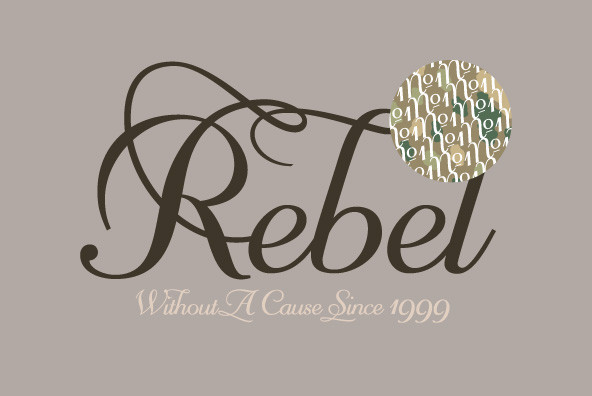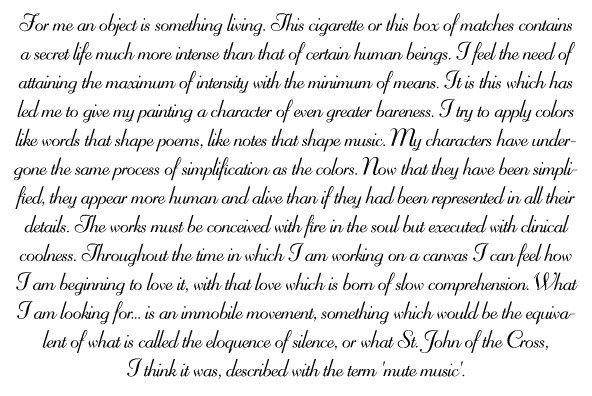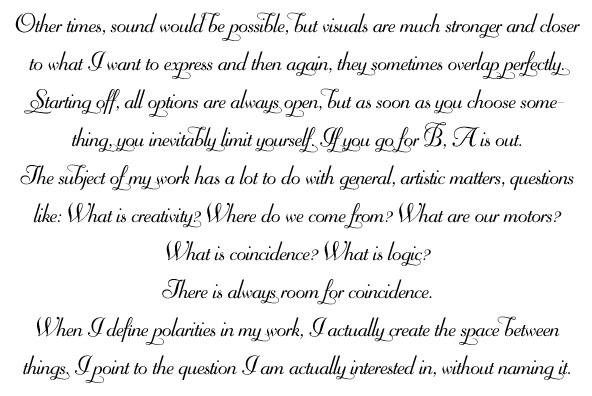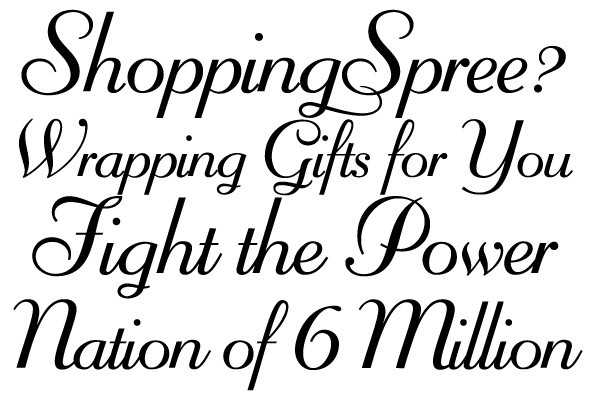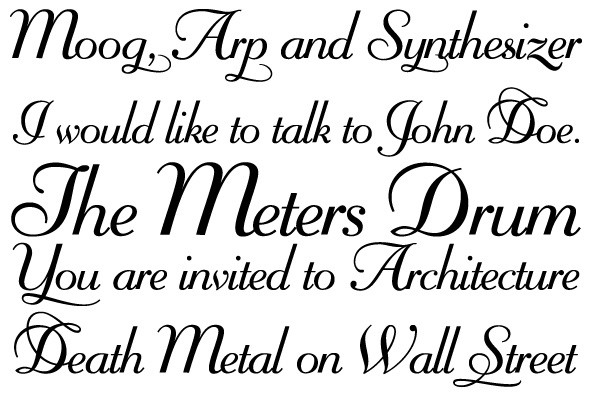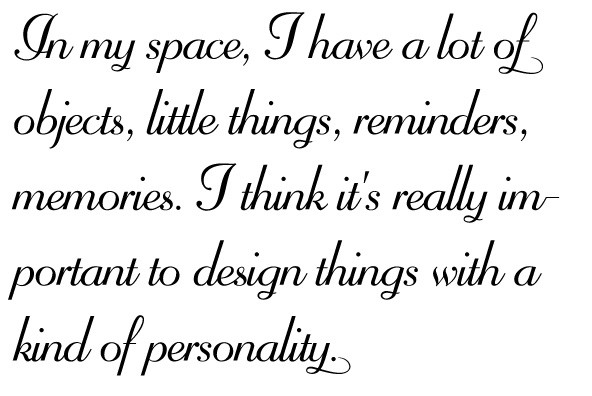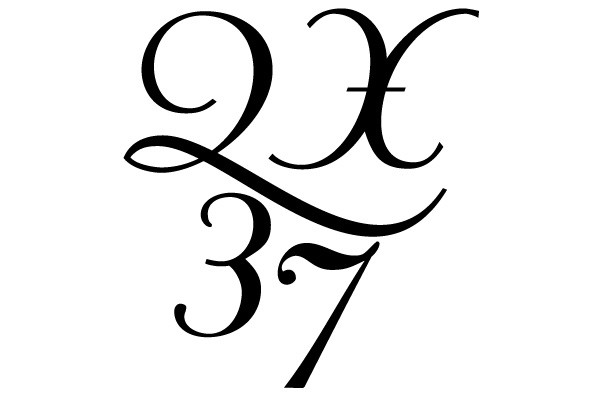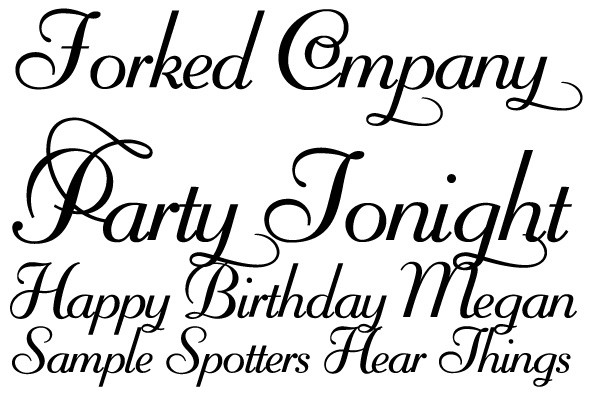
Mayfair
Foundry: Canada Type
The long awaited and much requested revival of Robert Hunter Middleton's very popular classic is finally here. Mayfair Cursive was an instant hit for Middleton in 1932, and it went on being used widely until late into the 1970s, in spite of it never having crossed over to film type technology.
Like a few of its contemporary designs, most notably the work of Lucien Bernhard, Mayfair is a formal script that is somewhat based on traditional italic forms with swash uppercase, but also employs subsidiary hairline strokes in some of its lowercase as an emphasis to the script's cursive traits.
Why these gorgeous letters never made the leap into photo typesetting is a mystery to us. But here they are now in digital form, almost three quarters of a century since they first saw the light in metal. Mayfair was redrawn from original 48 pt specimen. It also underwent a major expansion of character set. Plenty of swash characters and ligatures were added. An alternate set of lowercase was also made, in order to give the user a choice between connected and disconnected variations of the same elegant script.
We are quite sure today's graphic designers will be appreciative of having access to the face that all but defined menus, romance covers, wine and liquor labels and chocolate boxes for almost two 20th century generations.
Like a few of its contemporary designs, most notably the work of Lucien Bernhard, Mayfair is a formal script that is somewhat based on traditional italic forms with swash uppercase, but also employs subsidiary hairline strokes in some of its lowercase as an emphasis to the script's cursive traits.
Why these gorgeous letters never made the leap into photo typesetting is a mystery to us. But here they are now in digital form, almost three quarters of a century since they first saw the light in metal. Mayfair was redrawn from original 48 pt specimen. It also underwent a major expansion of character set. Plenty of swash characters and ligatures were added. An alternate set of lowercase was also made, in order to give the user a choice between connected and disconnected variations of the same elegant script.
We are quite sure today's graphic designers will be appreciative of having access to the face that all but defined menus, romance covers, wine and liquor labels and chocolate boxes for almost two 20th century generations.